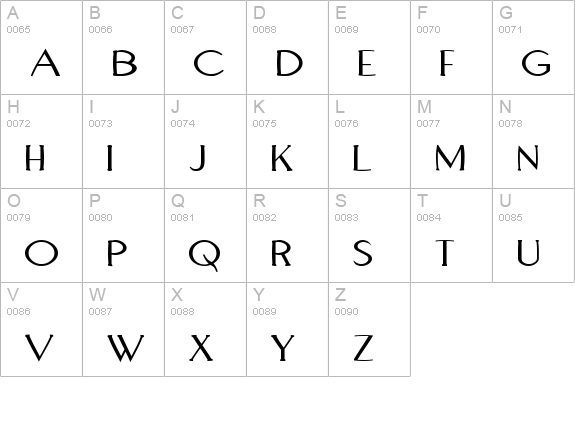
The Aquaduct Warp font is a dynamic and modern typeface that exudes a sense of movement and fluidity. Its unique design features sleek lines and subtle curves that give it a futuristic and energetic look. Perfect for projects that require a touch of innovation and creativity, this font will captivate your audience and make your designs stand out. Best of all, Aquaduct Warp is available for free download at FontsMarket.com. So go ahead and grab this exciting font to add a touch of excitement and originality to your next project. Whether you're working on a branding campaign, a website design, or any other creative endeavor, Aquaduct Warp is sure to make a lasting impression.